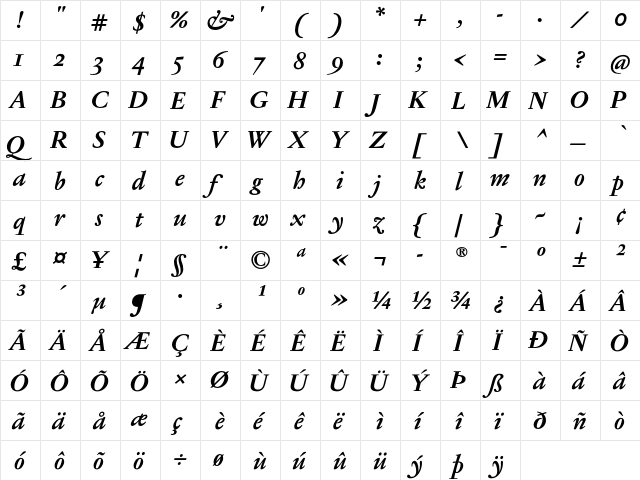
Jannon T Moderne Pro Bold Italic Font Preview
| Foundry | Frantisek Storm |
| Designer | Frantisek Storm |
Design Context for Jannon T Moderne Pro Typeface
Jannon T Moderne Pro offers clean, dependable letterforms without strong stylistic allegiance, making it a practical choice for designers who need flexibility. Its italic angle brings a sense of urgency and motion to the letterforms. The heavy weight commands attention and anchors typographic hierarchies.
Pro Tip: Try Jannon T Moderne Pro for annotation and caption copy alongside an upright companion — the contrast in angle creates a dynamic but ordered typographic system.